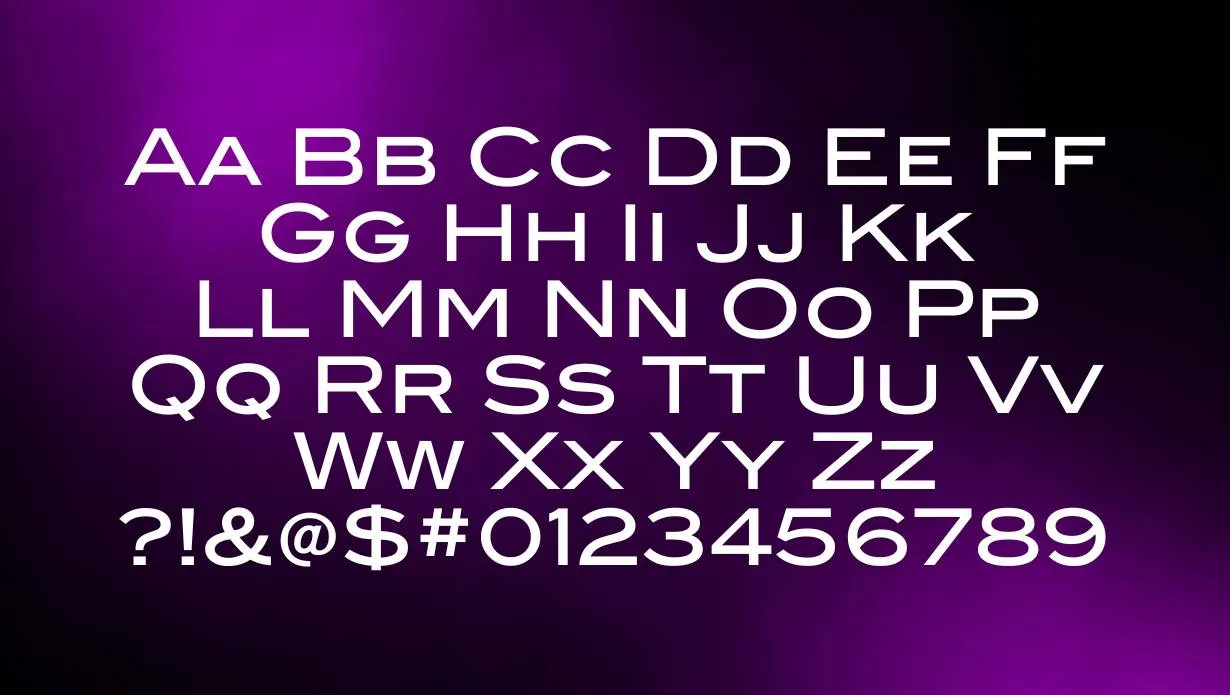
The BlairMd ITC TT Font exudes a hint of elegance with a contemporary flair, making it an ideal choice for projects seeking a modern and polished appearance. Its chic characters are perfect for branding or creative designs.
| Name | BlairMd ITC TT Font |
| Designer | High Logic Font Foundry |